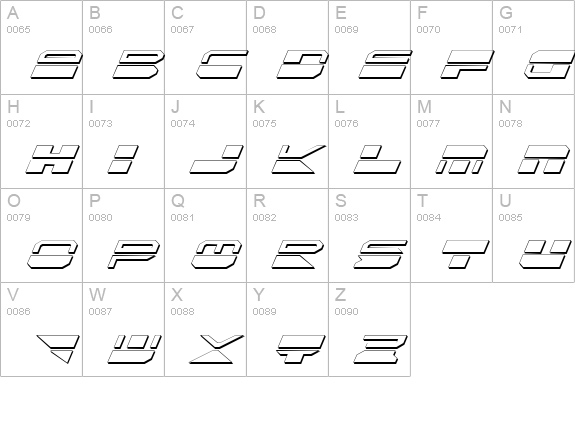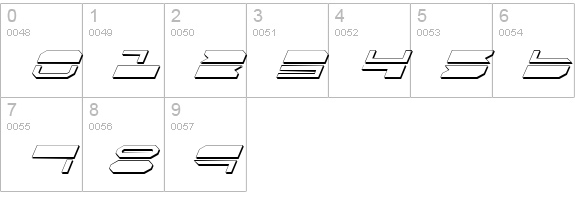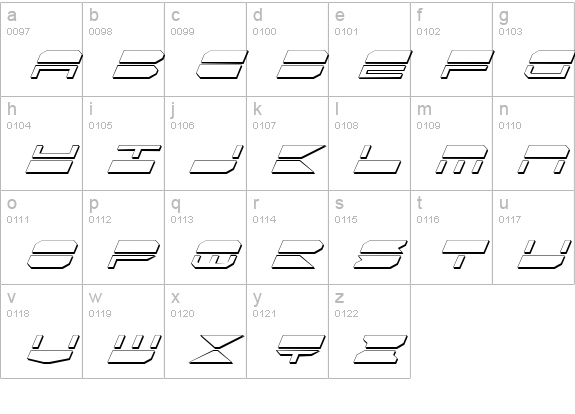
Quickmark Shadow Italic is a distinctive, italic variant in the Quickmark typeface family \xE2\x80\x94 well suited to design and typography projects.
Quickmark Shadow Italic is a modern and stylish font that adds a touch of elegance to any design project. The unique shadow effect creates a sense of depth and sophistication, making this font perfect for titles, headlines, and other prominent text elements. Its italic style exudes a sense of dynamism and movement, adding a contemporary flair to any design. What sets Quickmark Shadow Italic apart is not only its striking design but also its accessibility. This font is available for free download at FontsMarket.com, making it a fantastic choice for designers looking to add a touch of creativity to their projects without breaking the bank. Whether you're working on a website, poster, logo, or any other design project, Quickmark Shadow Italic is sure to make a lasting impression.